Luxury serif font bundles have become a favorite choice for designers, entrepreneurs, and creatives who want premium-looking typography without buying fonts one by one. Whether you are building a fashion logo, designing cosmetic packaging, or creating social media templates, a well-curated serif bundle can instantly elevate your work.
Unlike single fonts, bundles give you more flexibility to experiment with different moods—from classic editorial elegance to modern luxury branding.
If you are looking for the best luxury serif font bundle for your next project, this guide will help you understand what to look for and why bundles offer exceptional value.
Why Designers Prefer Font Bundles Over Single Fonts
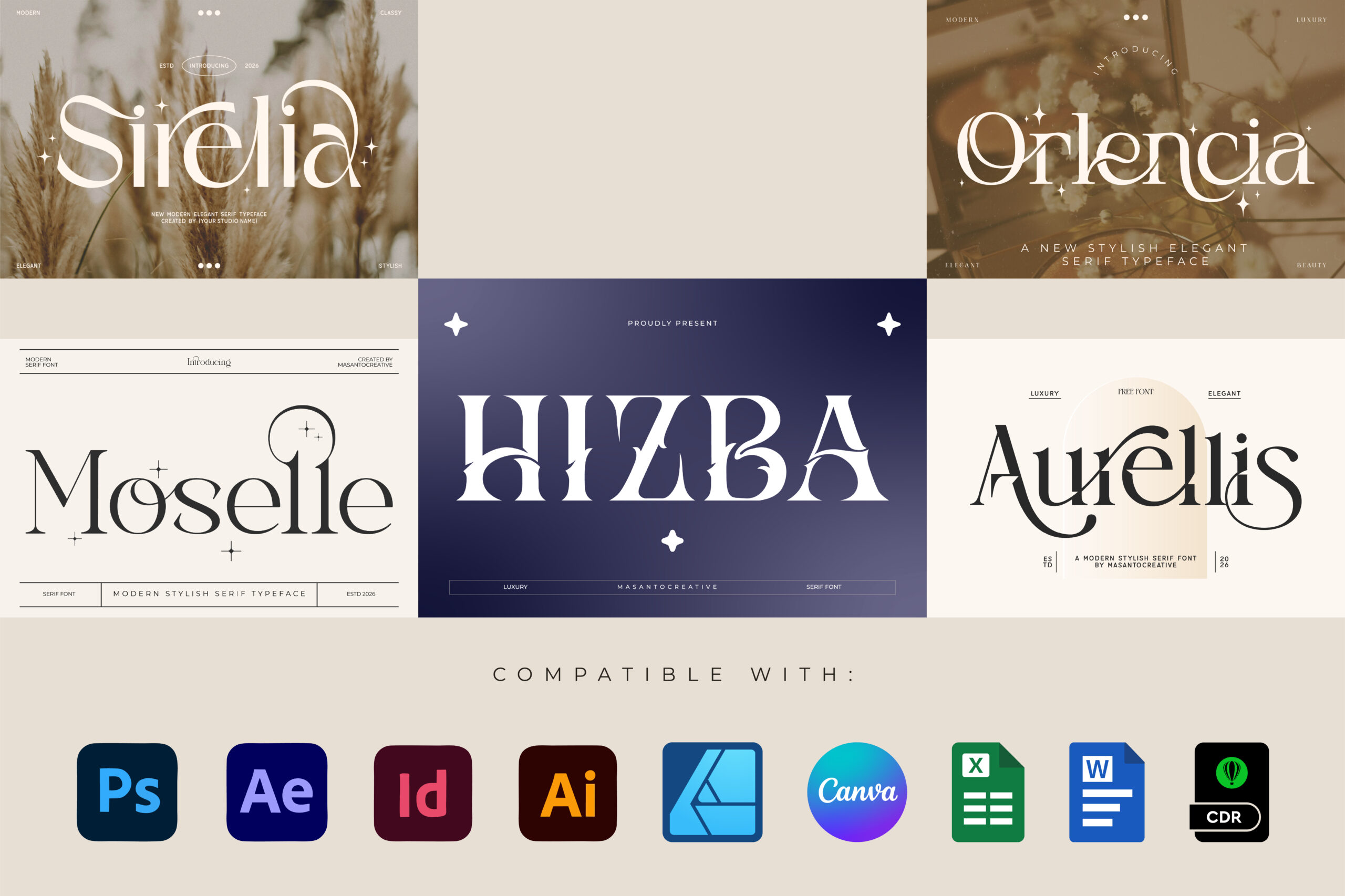
More Variety for Branding Projects
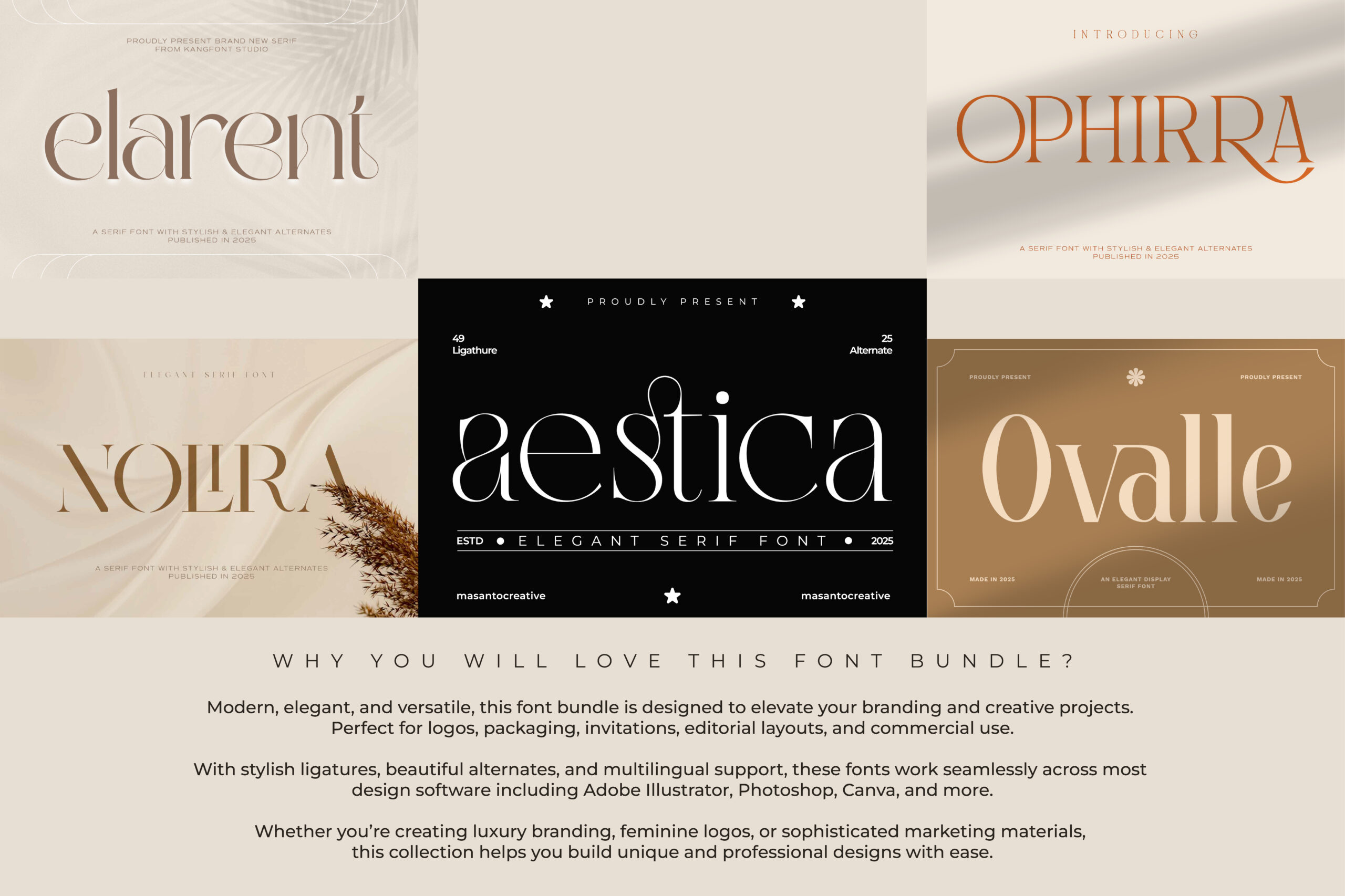
A quality luxury serif bundle can include fonts suitable for:
- Fashion branding
- Boutique logos
- Wedding invitations
- Packaging design
- Magazine headlines
- Social media graphics
Having multiple typefaces allows you to test pairings and create a stronger visual identity.
Easier Font Pairing
Many bundles are curated so the fonts work together.
This makes pairing easier for logos, headers, and body text.
What Makes a Good Luxury Serif Font Bundle?
Not all font bundles are created equal.
Before buying, look for these features.
High Contrast Letterforms
Elegant serif fonts often have dramatic thick and thin strokes inspired by editorial typography.
This creates a sophisticated luxury look.
Beautiful Ligatures
Ligatures add personality and make branding feel custom-made.
Look for bundles that include decorative letter combinations.
Multiple Font Styles
A great bundle should include variety such as:
- Regular
- Display
- Condensed
- Italic
- Alternate characters
This gives you more design possibilities.
Recommended Luxury Serif Font Bundle for Elegant Branding
If you want a versatile bundle that works for multiple branding styles, this 10 Luxury Serif Fonts Bundle is worth considering.
It is designed for designers who need elegant typography for premium projects.
Perfect For:
- Luxury logo design
- Fashion brands
- Product packaging
- Editorial layouts
- Wedding stationery
- Social media templates
What Makes This Bundle Stand Out
- Modern serif aesthetics
- Elegant ligatures
- Premium high-end look
- Multiple font styles
How To Use Luxury Serif Fonts Like Premium Brands
Using the right font is only half the equation.
How you apply it matters too.
Pair Serif With Minimal Sans
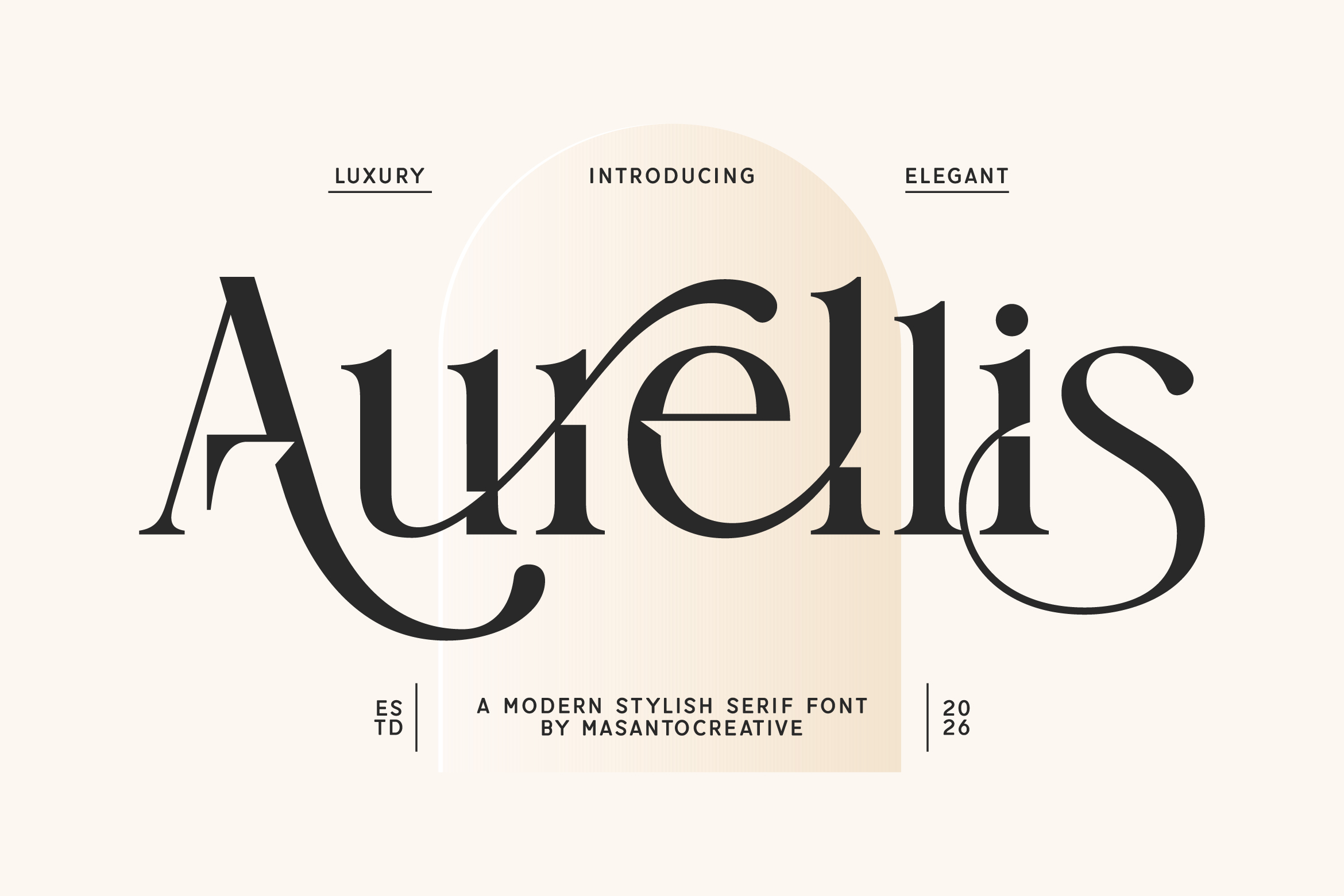
Use serif fonts for:
- Headlines
- Logos
- Titles
Use clean sans serif fonts for:
- Body text
- Subheadings
- Supporting content
This creates balance.
Use Generous Letter Spacing
Luxury brands often use slightly increased tracking.
This makes typography feel refined and editorial.
Keep Color Palettes Minimal
Luxury typography works beautifully with:
- Black
- Ivory
- Beige
- Soft gold
Simple colors let the type shine.
Who Should Buy a Luxury Serif Font Bundle?
These bundles are ideal for many creative professionals.
Graphic Designers
Build stronger identities for client projects.
Etsy Sellers
Use premium typography for product branding and packaging.
Content Creators
Upgrade Instagram graphics, Pinterest designs, and digital products.
Small Business Owners
Create polished branding without hiring a full design studio.
Why Font Bundles Are Trending in 2026
More creators are moving toward bundled digital assets because they save time and money.
Instead of hunting for fonts individually, designers want ready-made collections.
Luxury serif bundles are especially popular because they fit growing trends in:
- Fashion branding
- Quiet luxury aesthetics
- Editorial-inspired logos
- Minimal premium packaging
This trend is expected to continue growing.
Final Thoughts
If you want typography that looks expensive and professional, a luxury serif font bundle is one of the best investments you can make.
It gives you multiple elegant typefaces, more creative freedom, and better value than buying fonts separately.
Are serif font bundles good for logo design?
Yes. Luxury serif fonts are often used for premium logos, especially in fashion, beauty, and editorial branding.